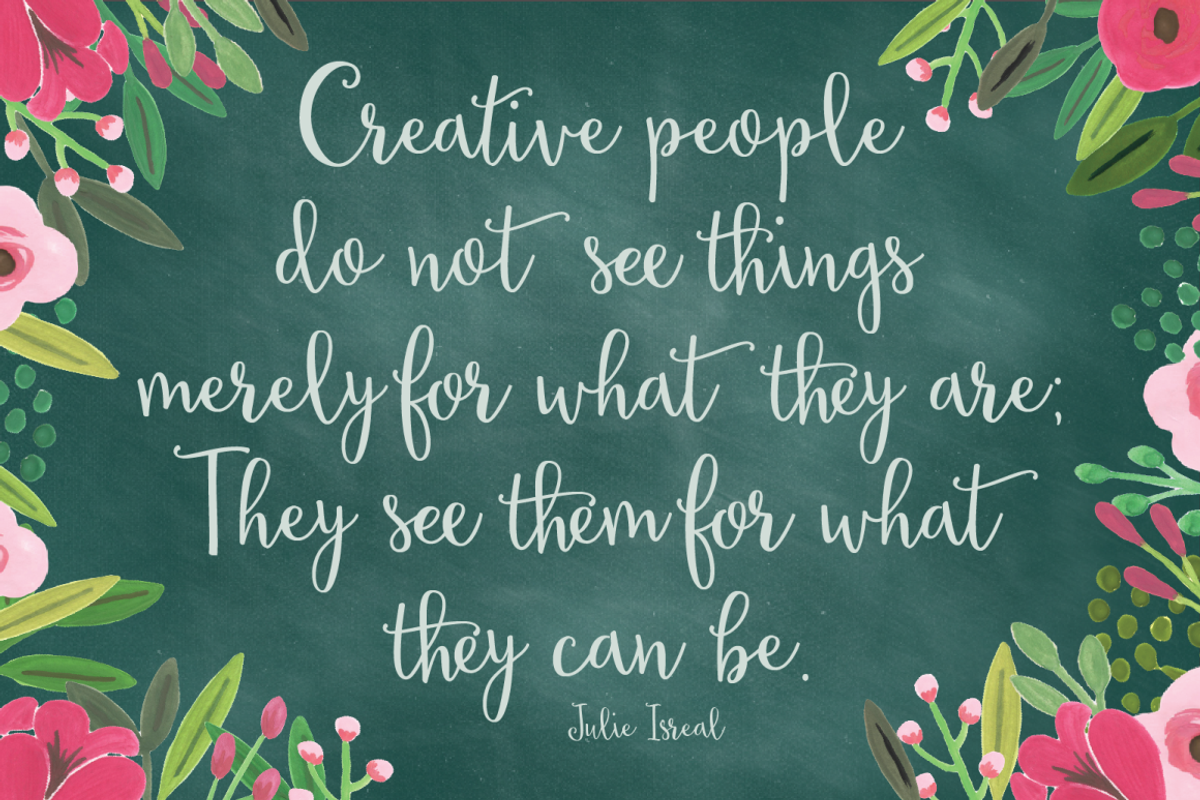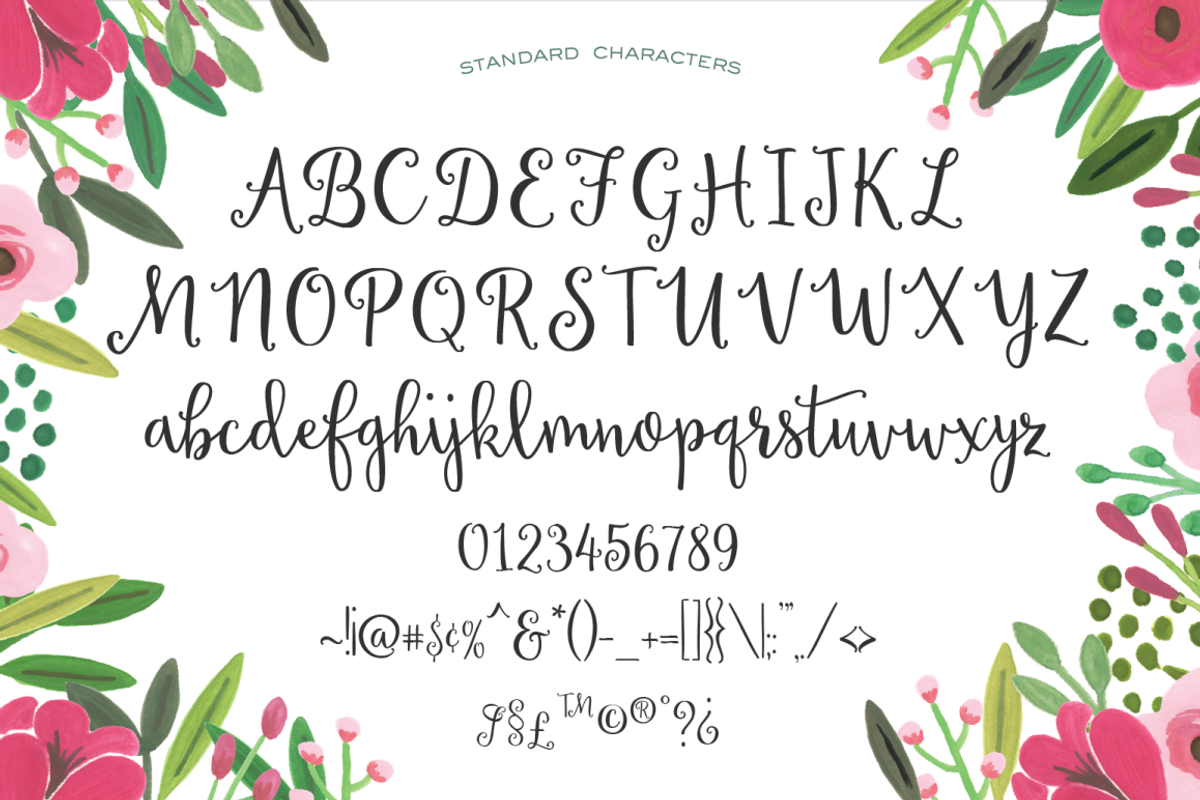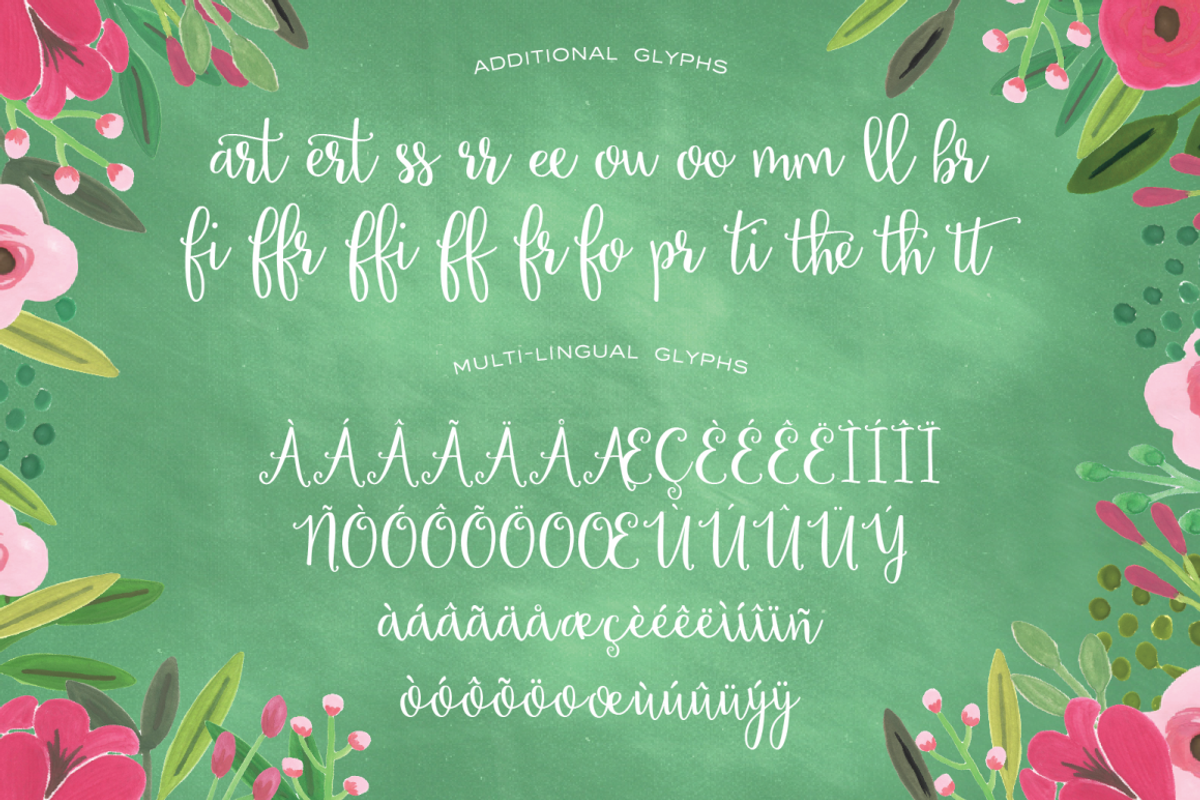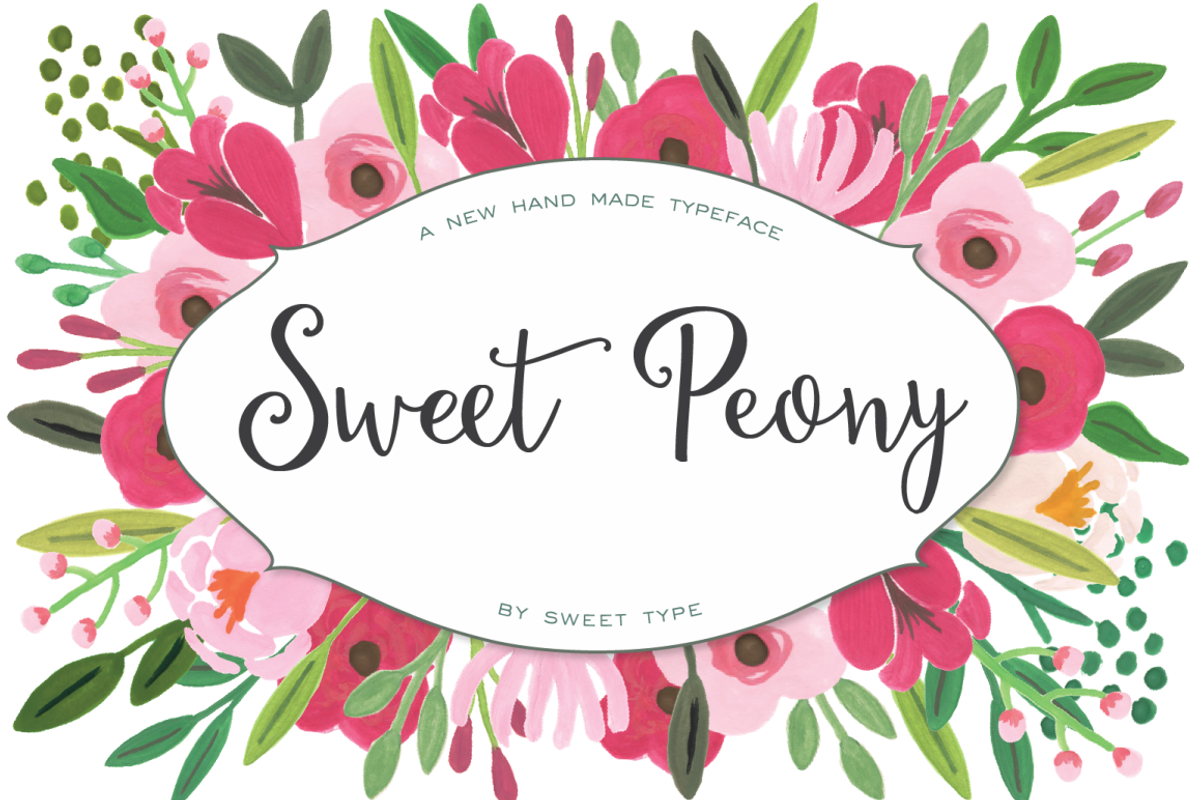
Sweet Peony
Welcome Sweet Peony! A sweet feminine typeface, hand drawn characters dance decoratively along the baseline. Script includes alternate letter combinations to use and create an even more authentic hand lettered look. Perfect for weddings, wall art, quotes, embroidery, and more!